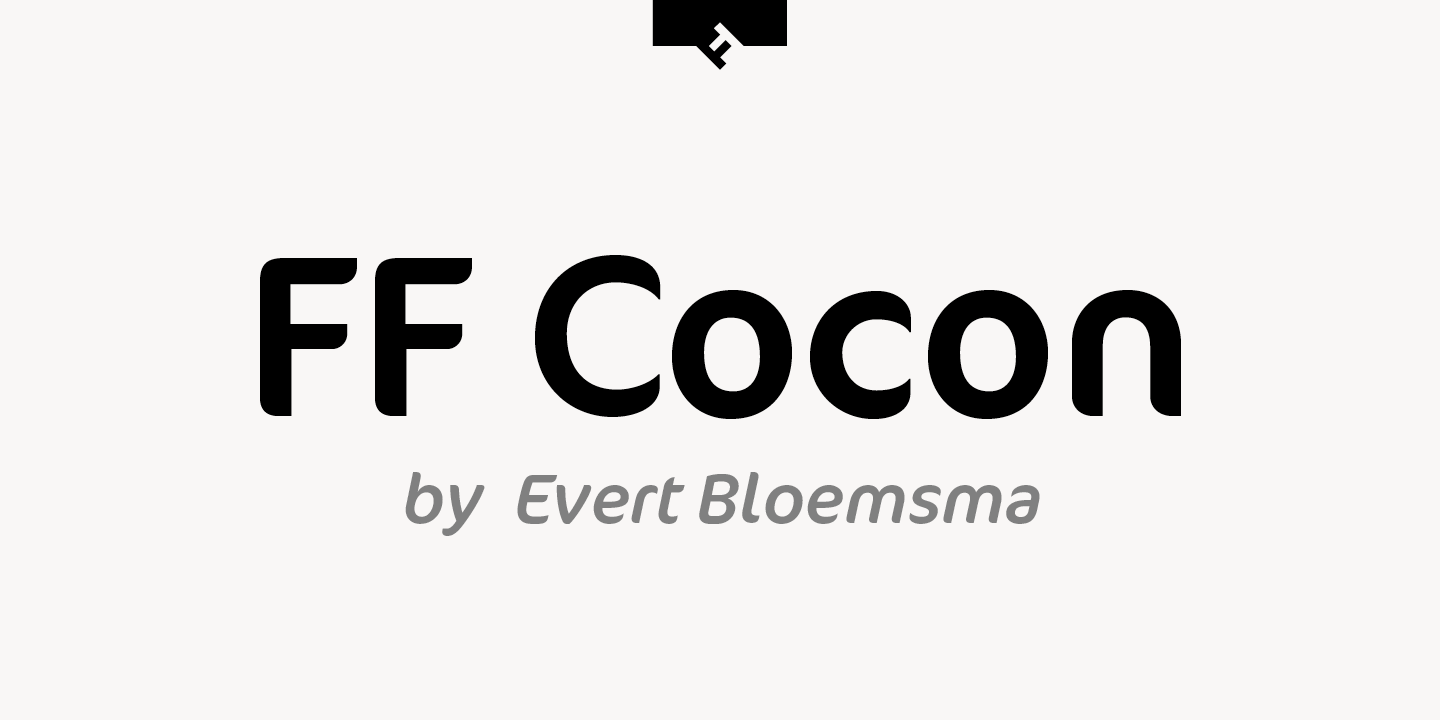
This distinctive typeface is perfect for organic skincare branding, wellness spa communications, sustainable lifestyle magazines, natural baby product packaging, eco-friendly boutique signage, mindfulness retreat materials, holistic health promotions, and nature-inspired marketing that requires nurturing warmth and organic sophistication with protective elegance and natural authenticity.
FF Cocon Font is exciting because it beautifully captures the essence of protection and organic growth through its soft, embracing letterforms that evoke the gentle shelter of a cocoon and the natural beauty of metamorphosis. The font's distinctive character design and nurturing aesthetic reflect the world of natural transformation and protective environments, making it perfect for wellness brands that want to convey caring protection, organic authenticity, and the kind of gentle sophistication that appeals to consumers seeking natural, nurturing products and holistic lifestyle experiences.
The FF Cocon Font family includes protective variations and organic styling options, featuring light, regular, medium, and bold weights, along with nurturing design elements and natural alternates that provide wellness companies and designers with comprehensive typographic tools for creating authentic organic branding and gentle protective communications.
Embrace natural transformation with FF Cocon Font Free Download, a typeface that brings organic elegance to contemporary wellness and natural product branding projects. This exceptional font combines protective warmth with sophisticated functionality, making it an indispensable resource for wellness brands, organic companies, and designers working on nature-focused lifestyle marketing. The gently crafted letterforms ensure excellent readability while conveying the nurturing protection and organic sophistication that defines this distinctly natural and authentically protective typeface.